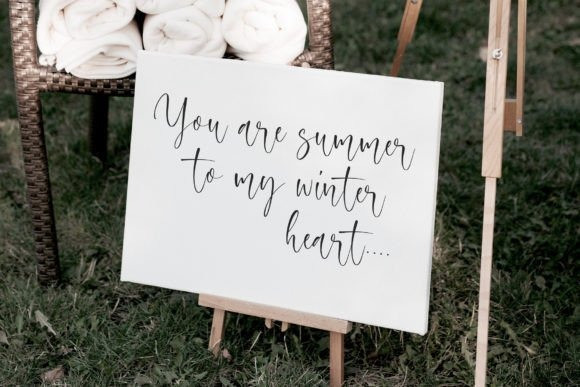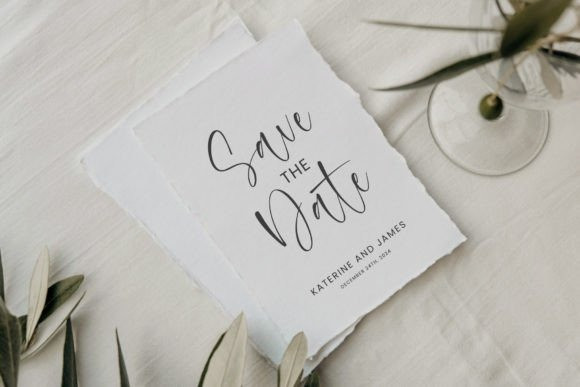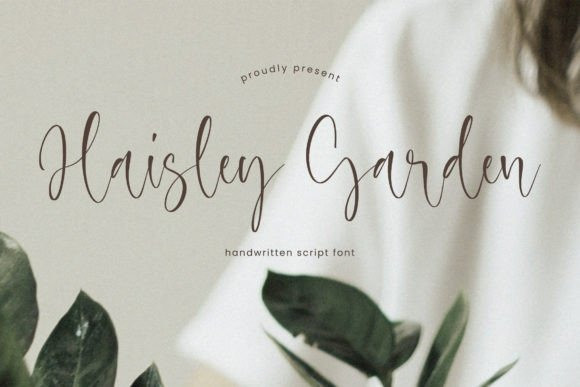
Haisley Garden Font
Haisley Garden Font, A Handwritten Script Font. It is perfect for product packaging, branding project, megazine, social media, wedding, or just used to express words above the background.